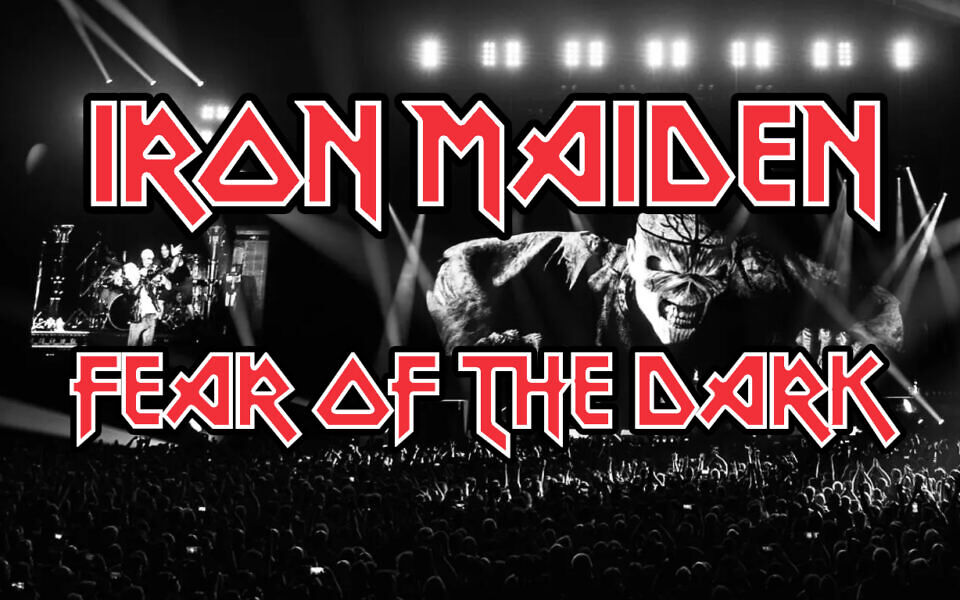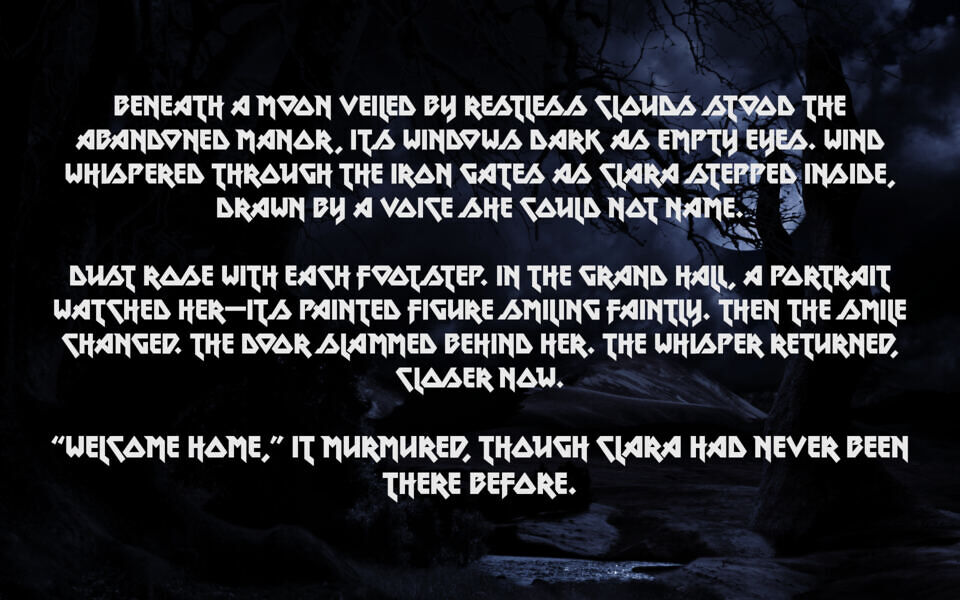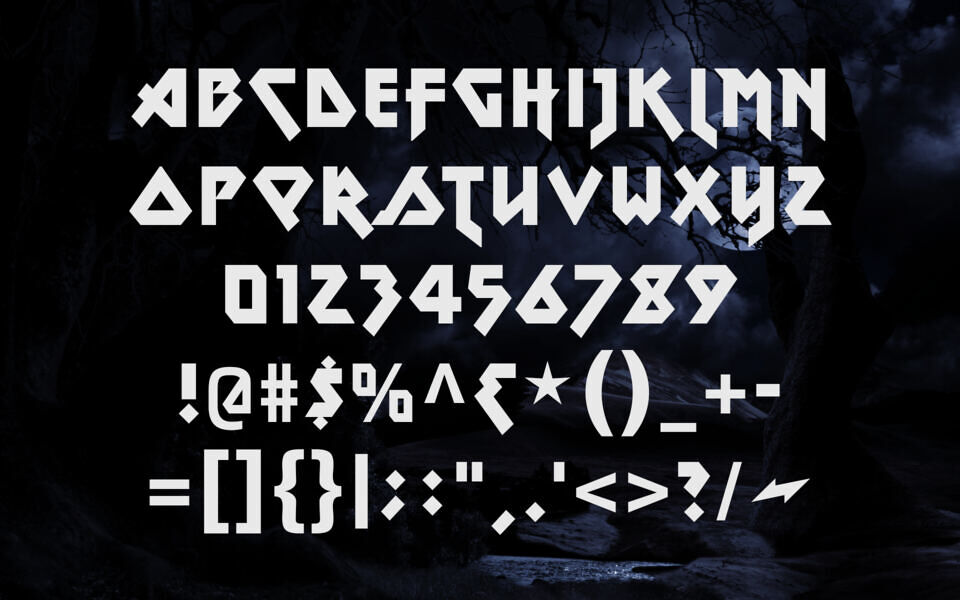
Metal Lord Font
Metal Lord is an angular heavy metal typeface which was created in 1996, inspired by the Iron Maiden logo. Designed by Ray Larabie from Typodermic Fonts, its sharp edges and aggressive geometric shapes evoke the style popularized by the legendary band logo.
The typeface features striking letterforms with dynamic ligatures that allow characters to connect and adjust for a tighter, more dramatic look. Perfect for posters, album artwork, gaming titles, and edgy branding, Metal Lord delivers a powerful rock-inspired visual impact.